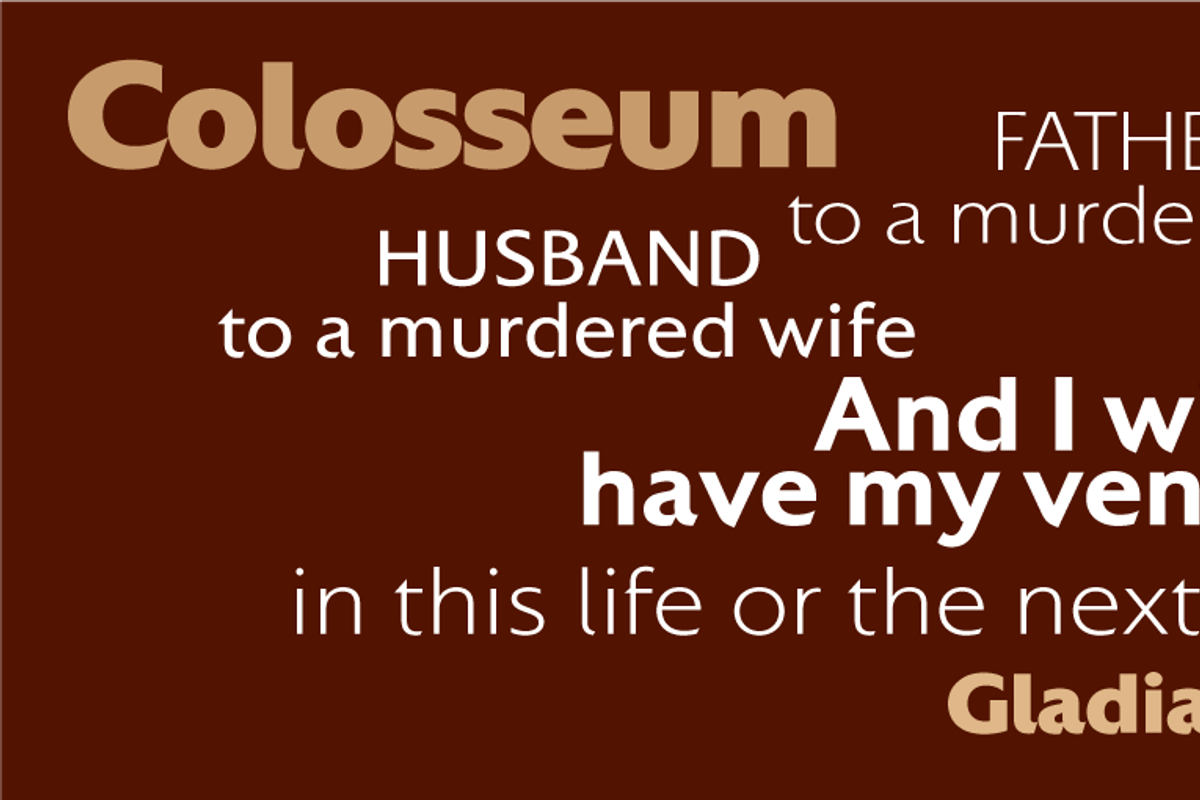
Colosseum
Colosseum is a sans serif font designed by Alan Meeks. It draws inspiration from the Trajan Roman form and Friz Quadrata, resulting in a modern and original look that's suitable for both text and headlines. Its inscriptional sans style makes it particularly adaptable for paragraph text while retaining a visually appealing presence for display purposes.